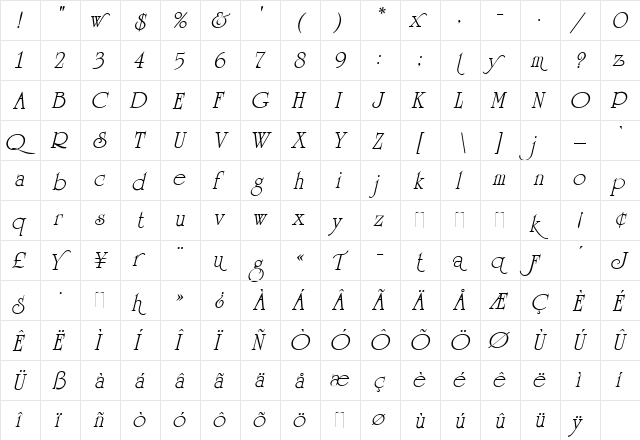
University Roman Italic Regular
Design Context for University Roman Italic Typeface
University Roman Italic offers clean, dependable letterforms without strong stylistic allegiance, making it a practical choice for designers who need flexibility. The slanted form adds forward momentum and visual energy.
Pro Tip: Use University Roman Italic for emphasis, pull quotes, and subheadings where its slanted energy can add rhythm to the layout.